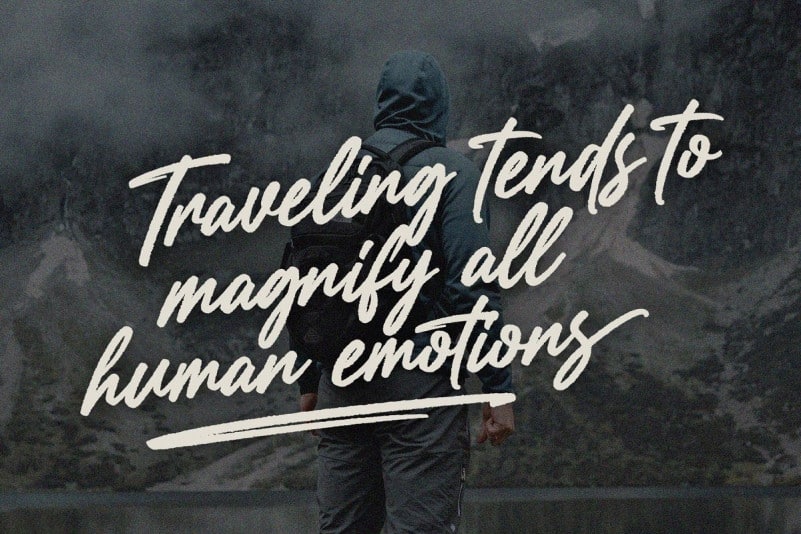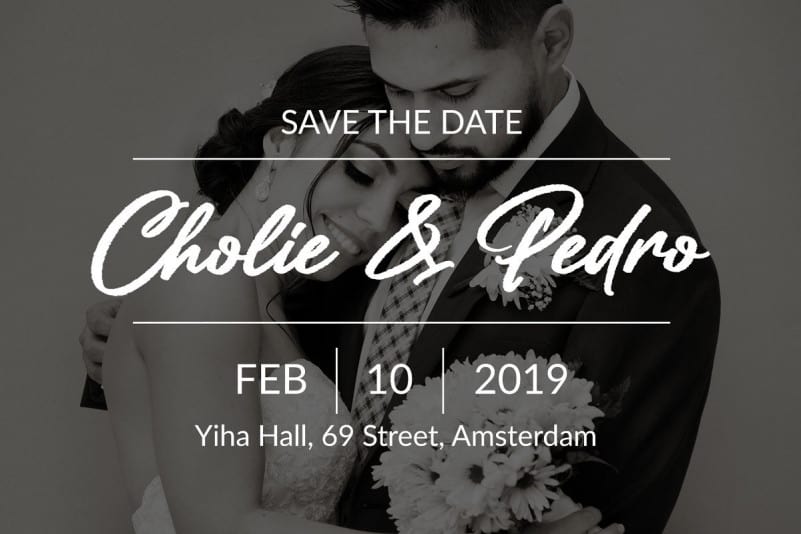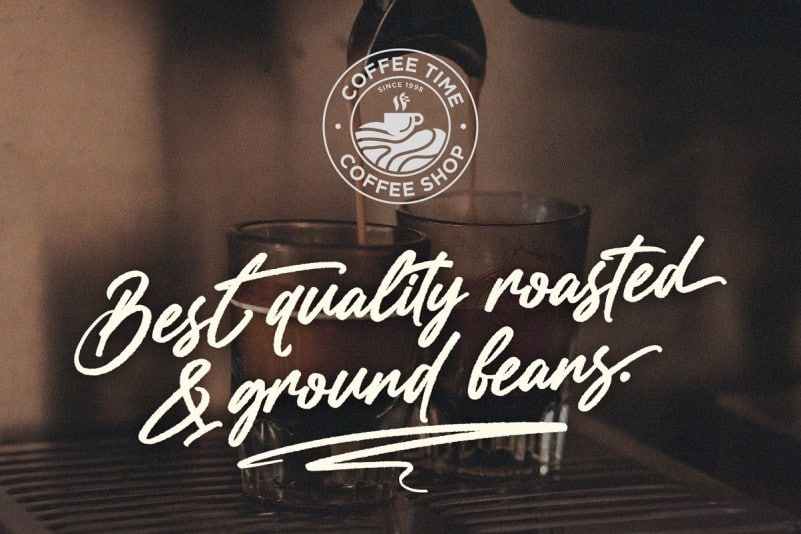
Rollanda Script Font
Introducing, Rollanda Script Font is a magical handwritten font carefully created with a touch of elegance. This is a beautiful combination of timeless elegance and authentic calligraphy. It’s designed and shared by Subectype Studio. With swift strokes and authentic dry textures, it’s an irresistibly charismatic & confident font choice for a range of design projects. Rollanda is perfect for branding projects, homeware designs, product packaging, Signature, Clothing – or simply as a stylish text overlay to any background image.